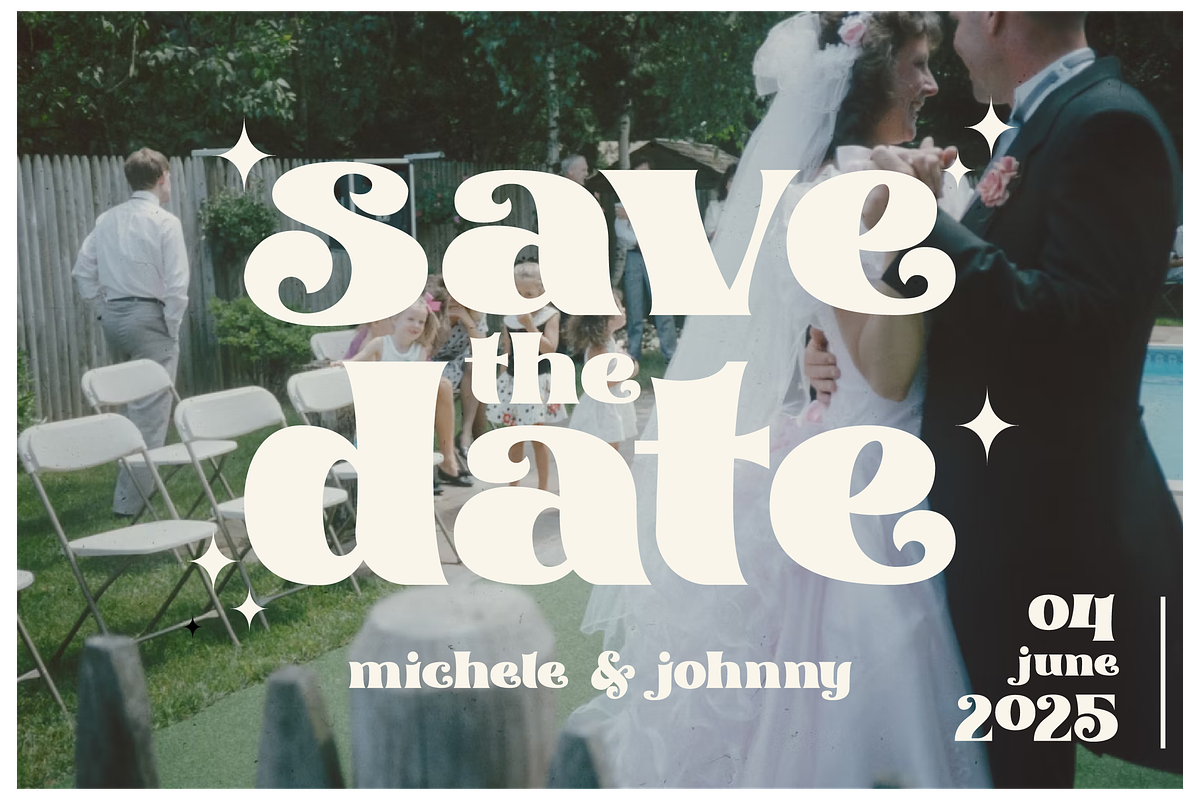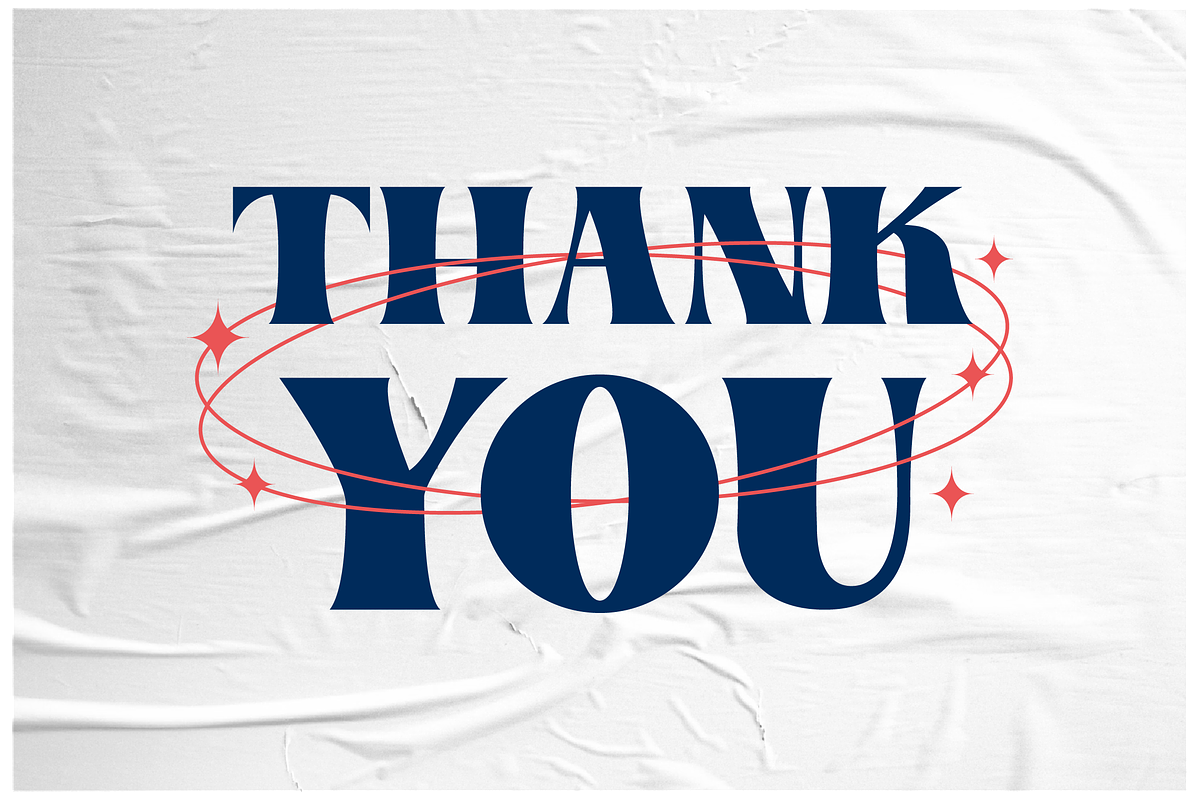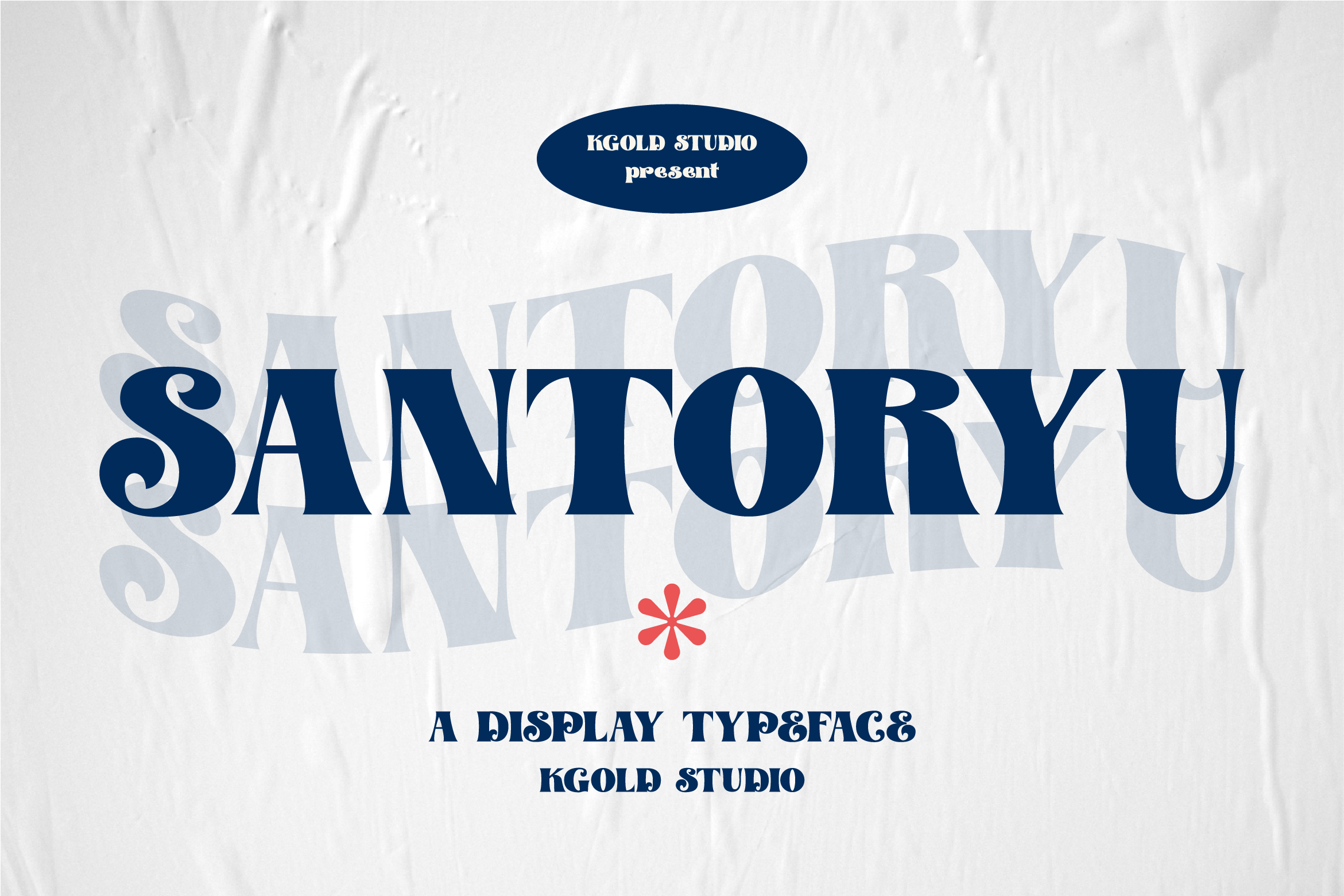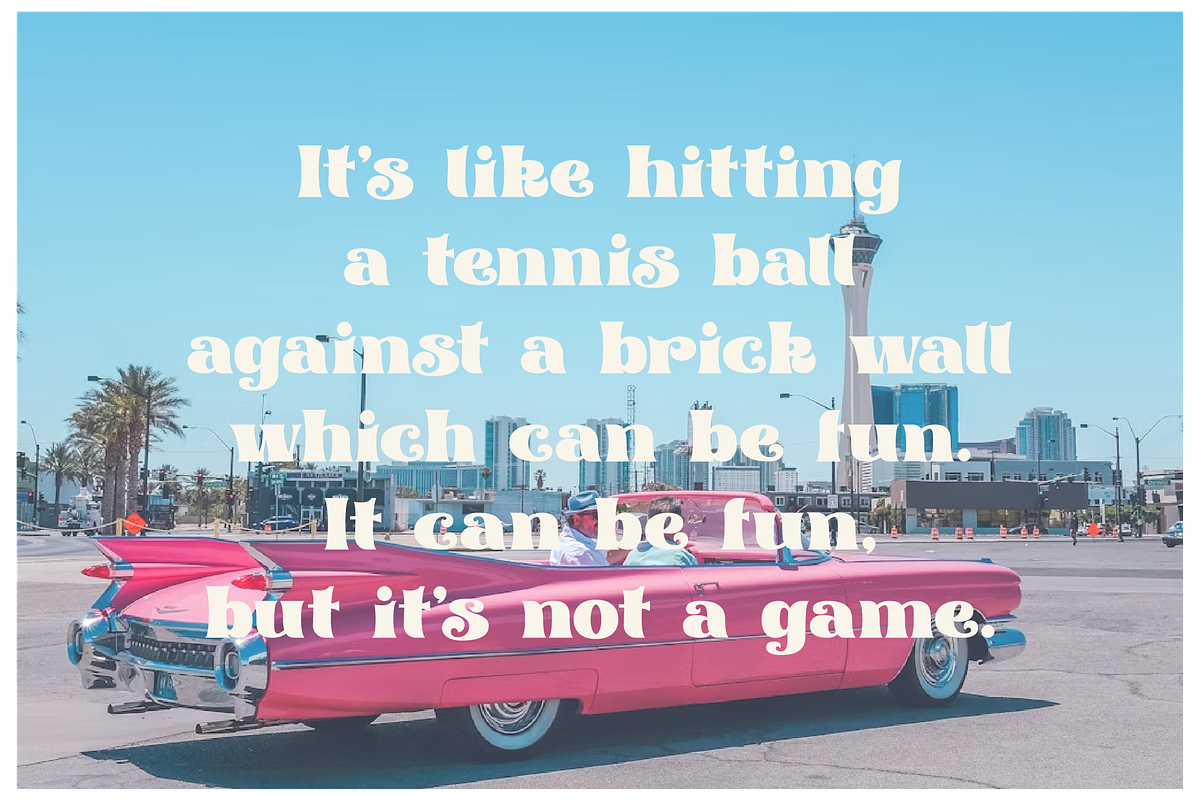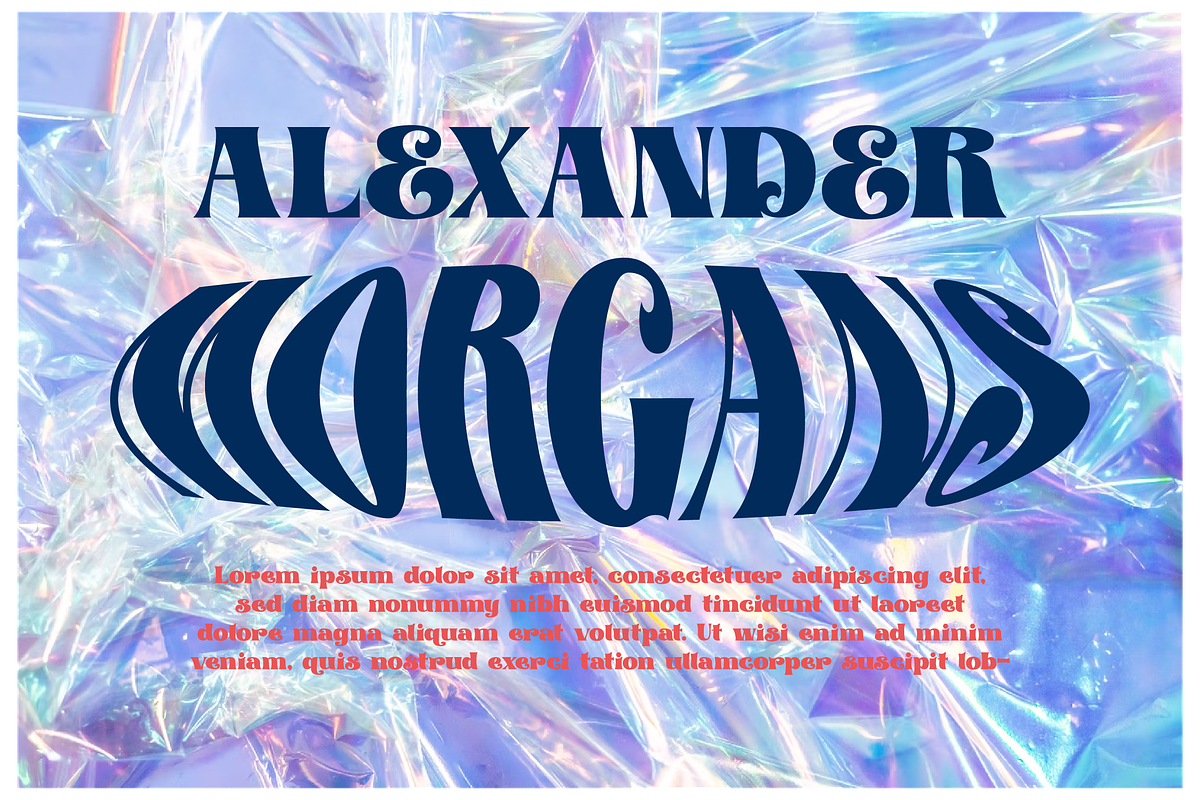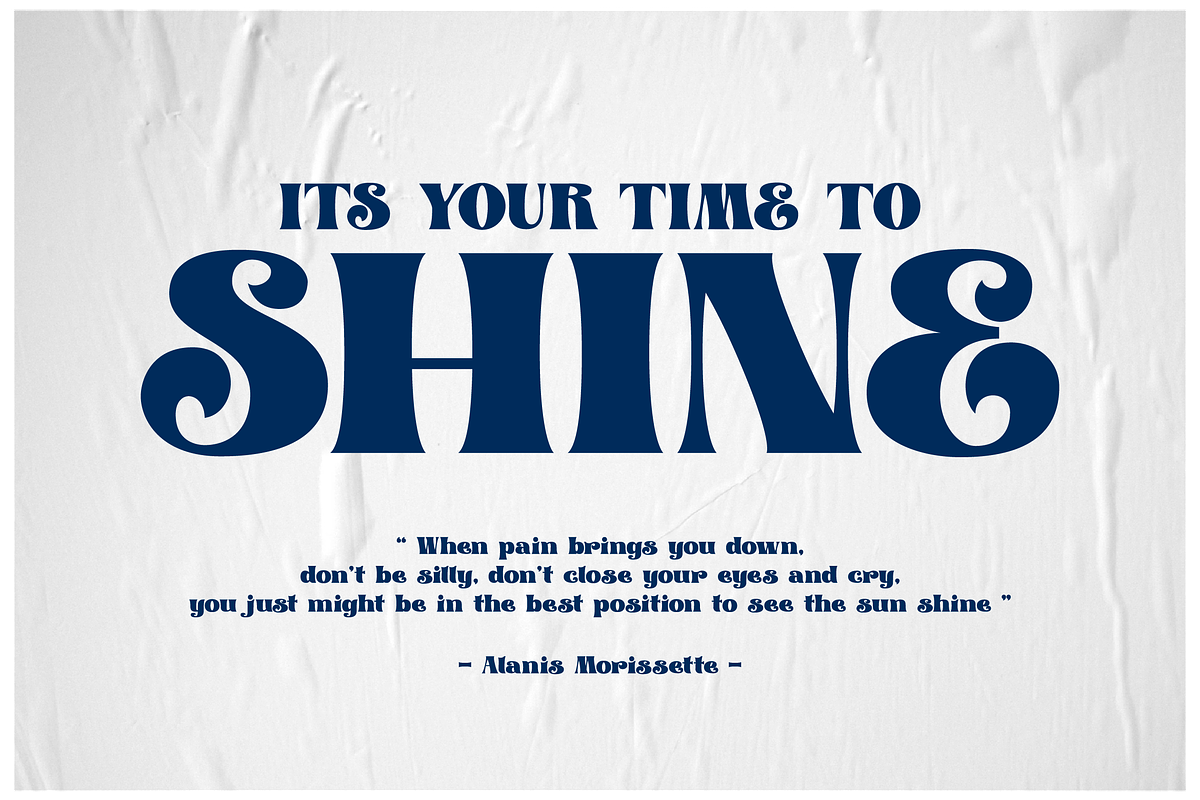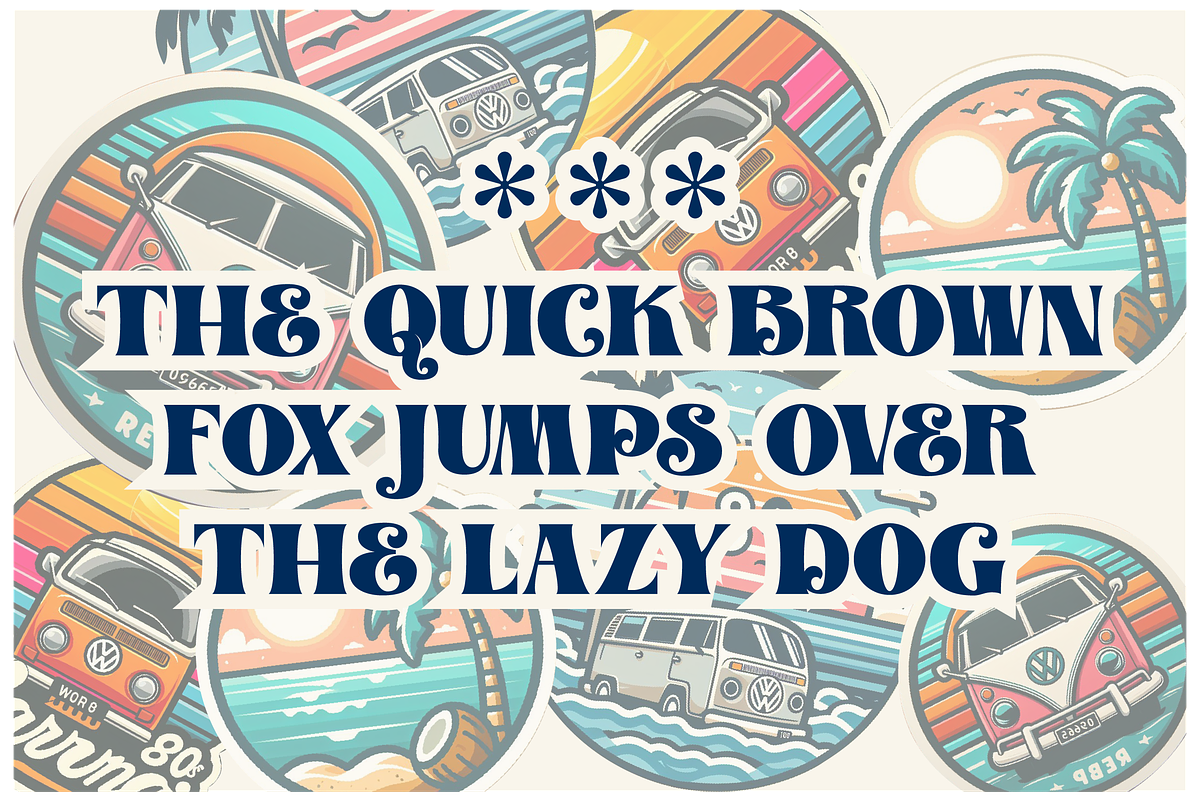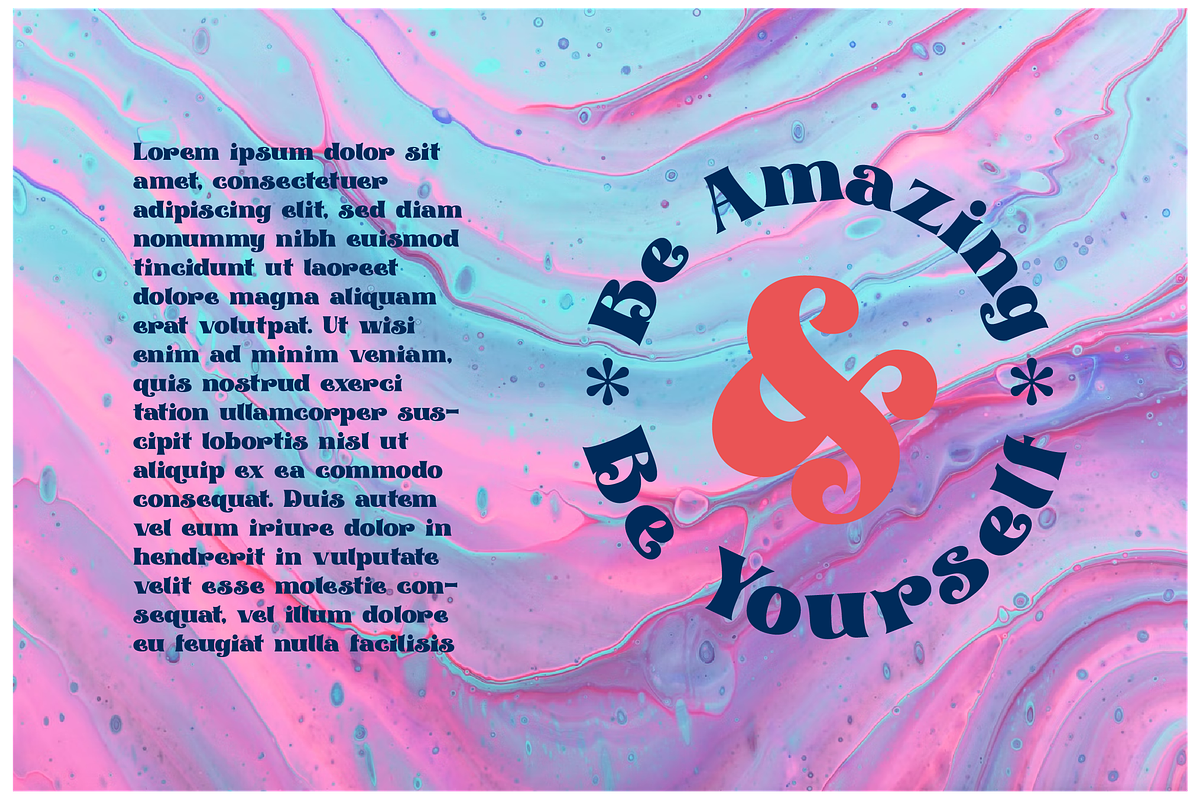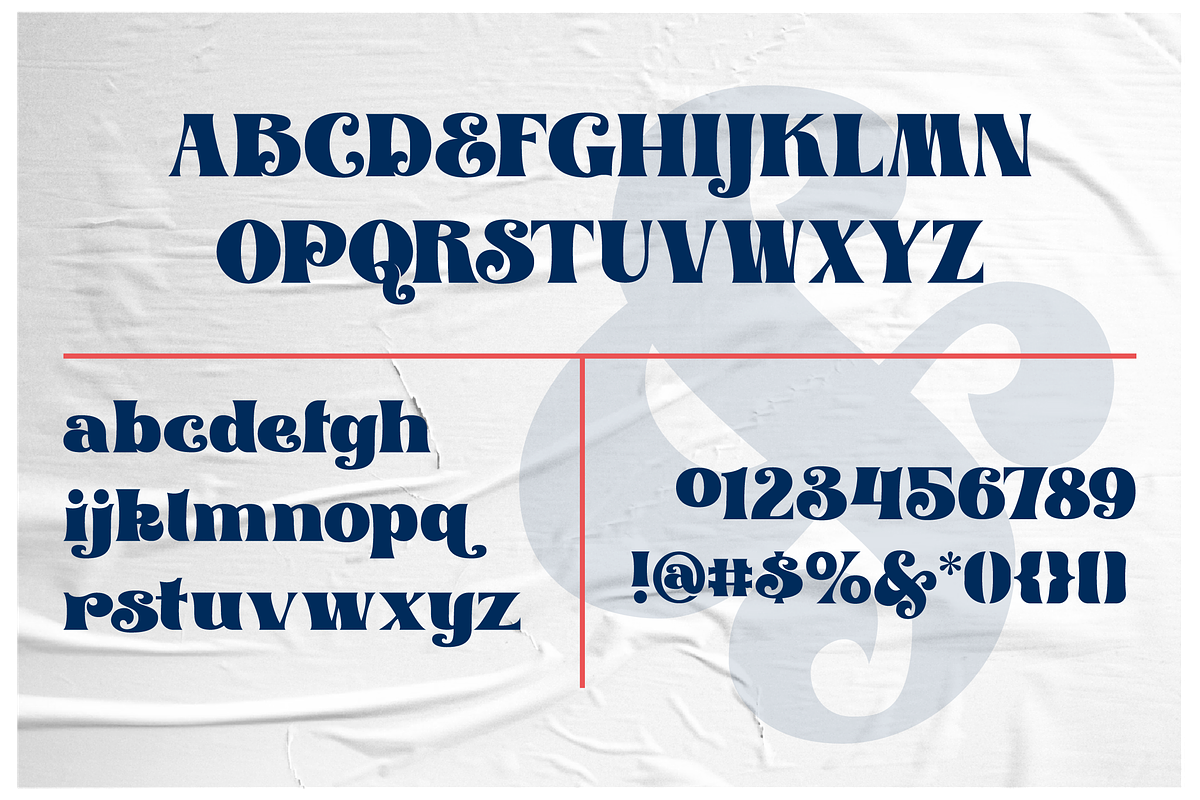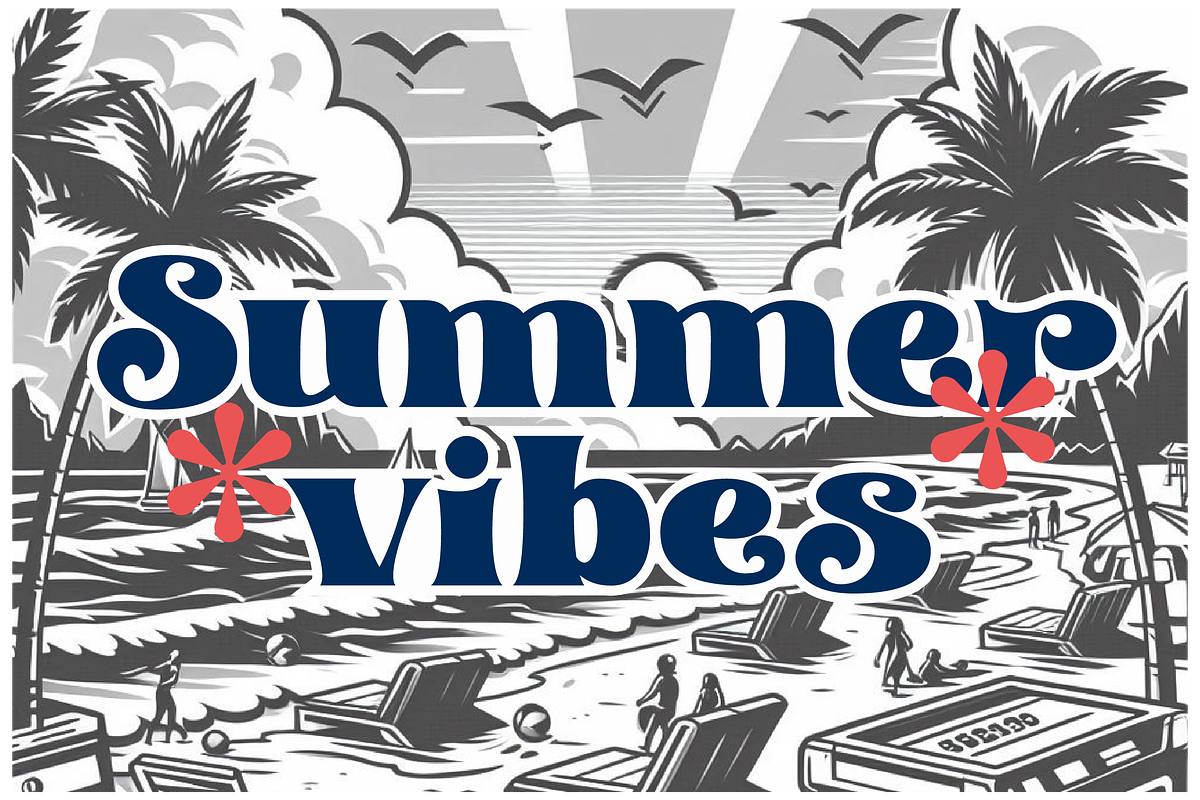
Santoryu - Retro Display Font
Santoryu is a retro display font that blends classic charm with a playful twist. Inspired by vintage aesthetics, this font captures the essence of old-school signage and nostalgic advertisements. Its bold, yet refined characters are designed to make a statement, adding a touch of fun and elegance to any creative project. Whether used for posters, branding, or packaging, "Santoryu" brings a sense of joy and timeless appeal that will captivate and delight your audience. Perfect for adding a retro flair to your designs, "Santoryu" is a must-have for any designer's toolkit.